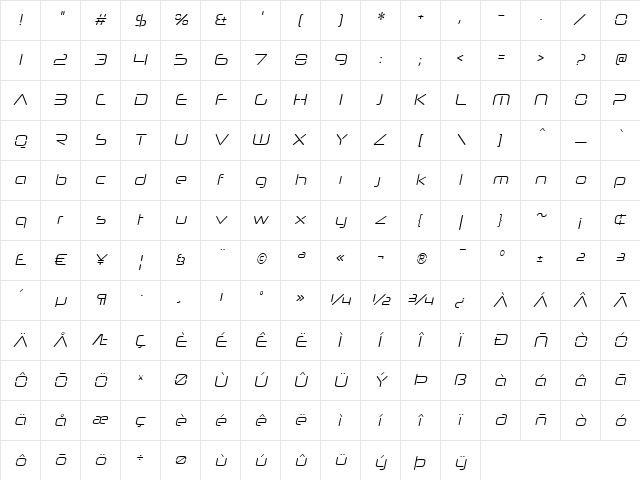
Neuropol Nova Lite Italic Font Preview
Neuropol Nova Lite Italic
Neuropol Nova Lite Italic Font Details
Design Context for Neuropol Nova Lite Typeface
Neuropol Nova Lite offers clean, dependable letterforms without strong stylistic allegiance, making it a practical choice for designers who need flexibility. The slanted form adds forward momentum and visual energy.